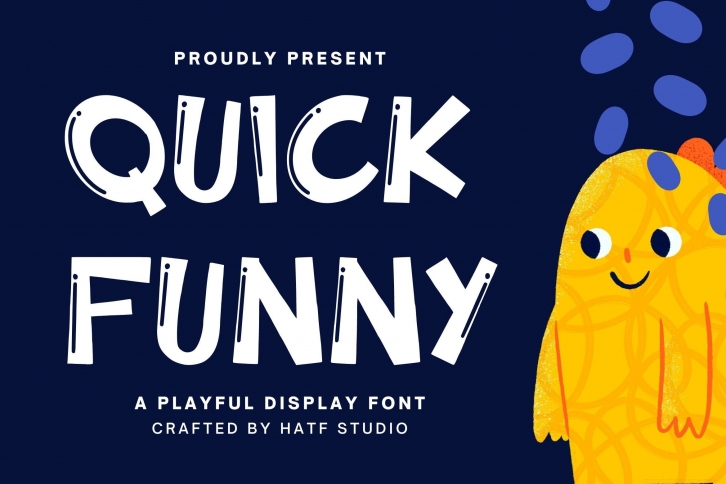
Quick Funny – A Playful Display Font with distinctive characters. It is perfect for branding projects, logos, wedding designs, media posts, advertisements, product packaging, product designs, labels, photography, watermarks, invitations, stationery, and any project that needs unique typography.